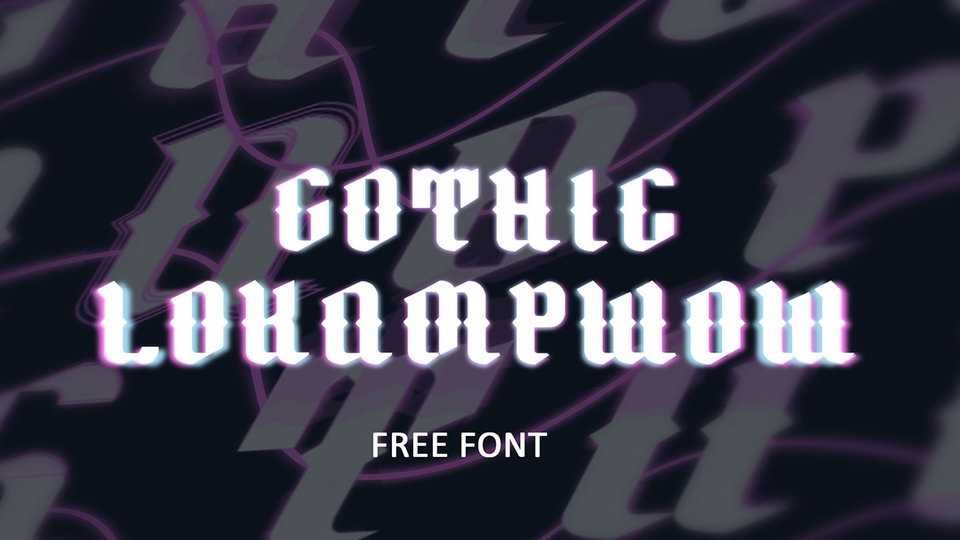
Download Lokampwow font, a gothic style font inspired by the mood. Great for posters design, headlines, authentic messages and other creative typographic projects.
Designer: Christopher Lokamp